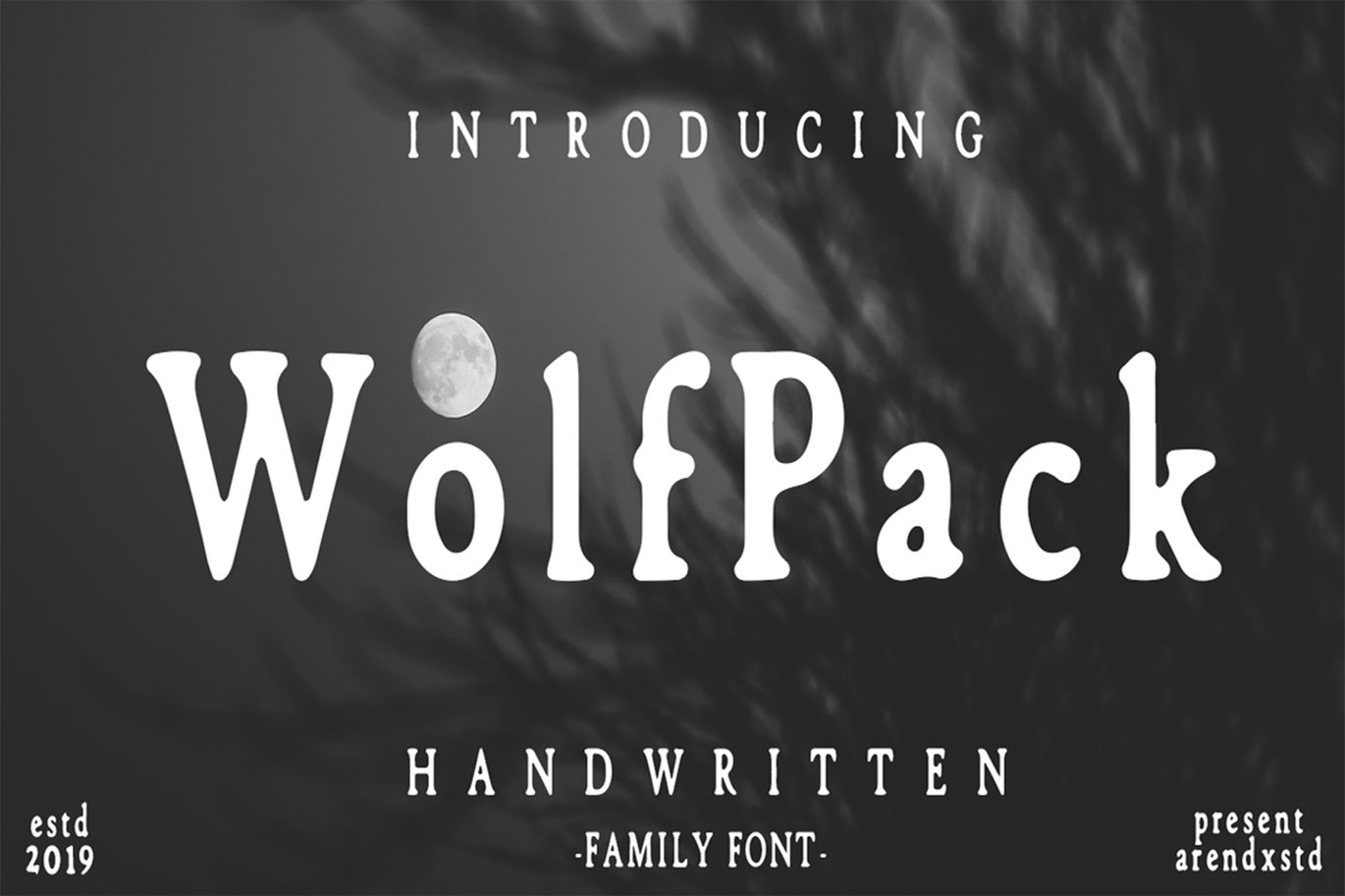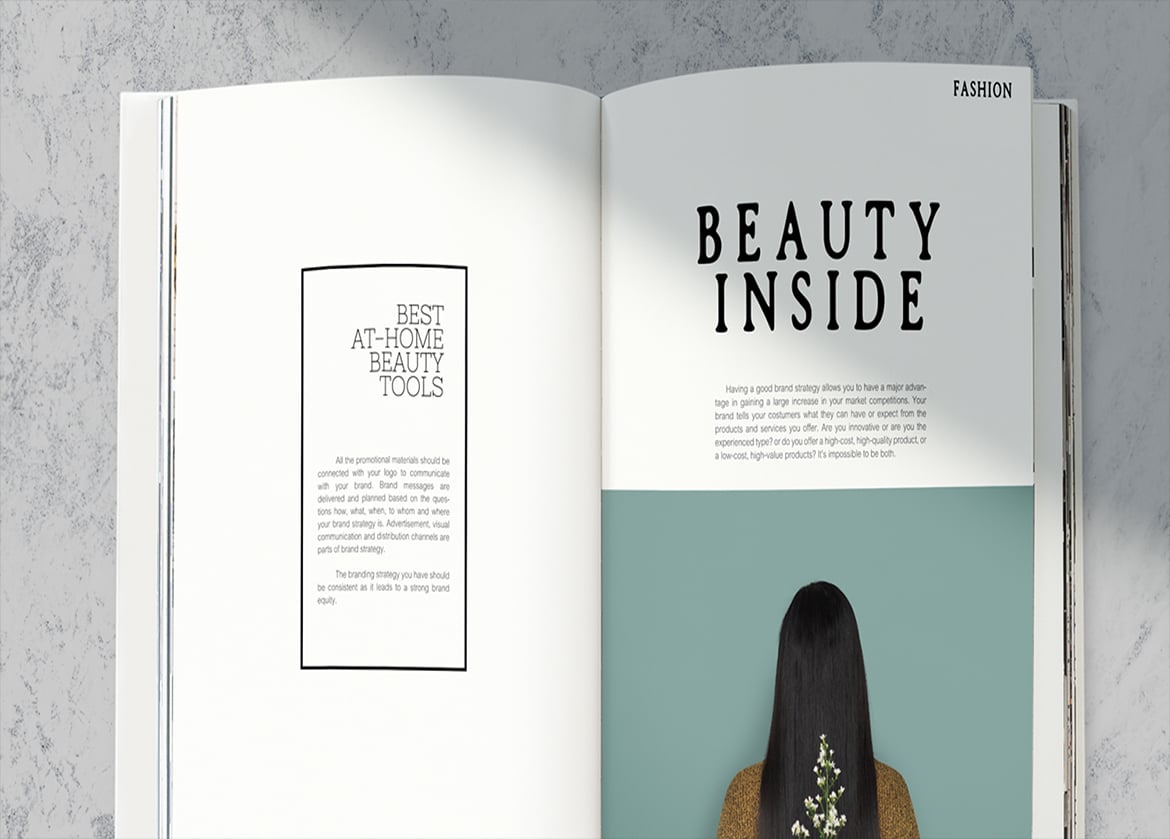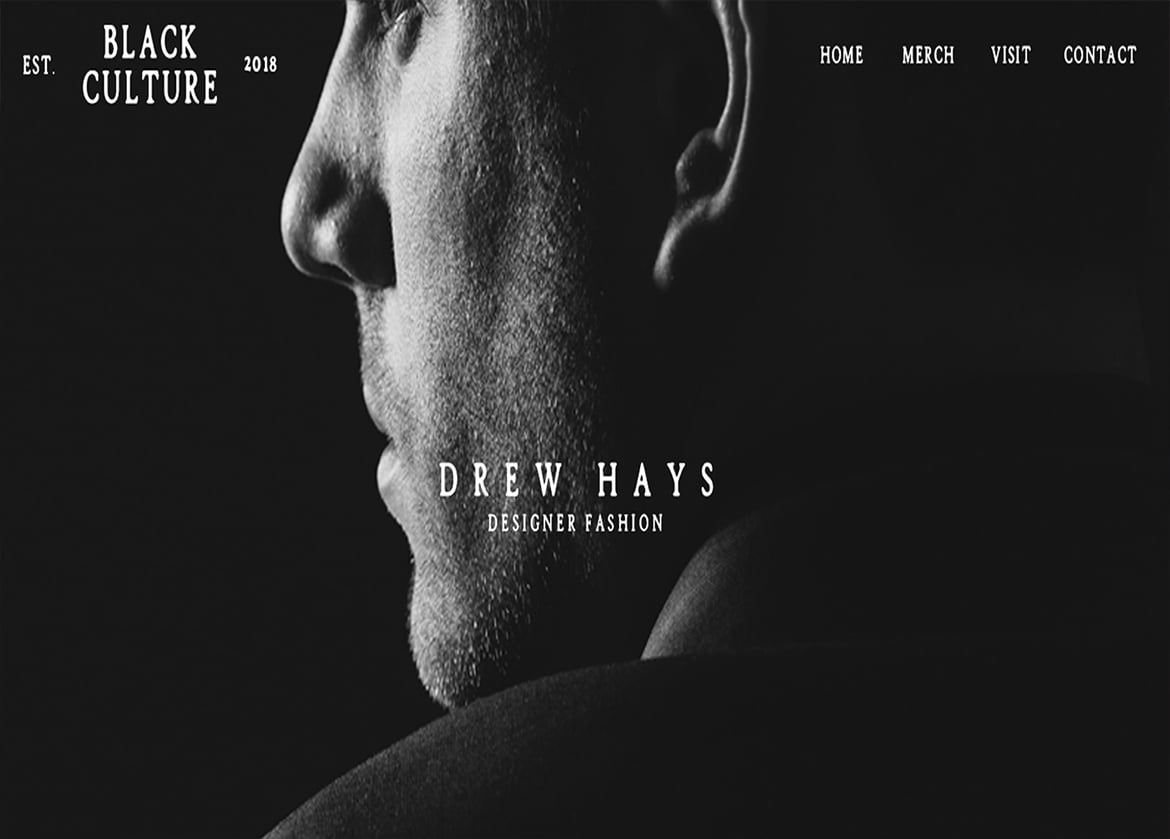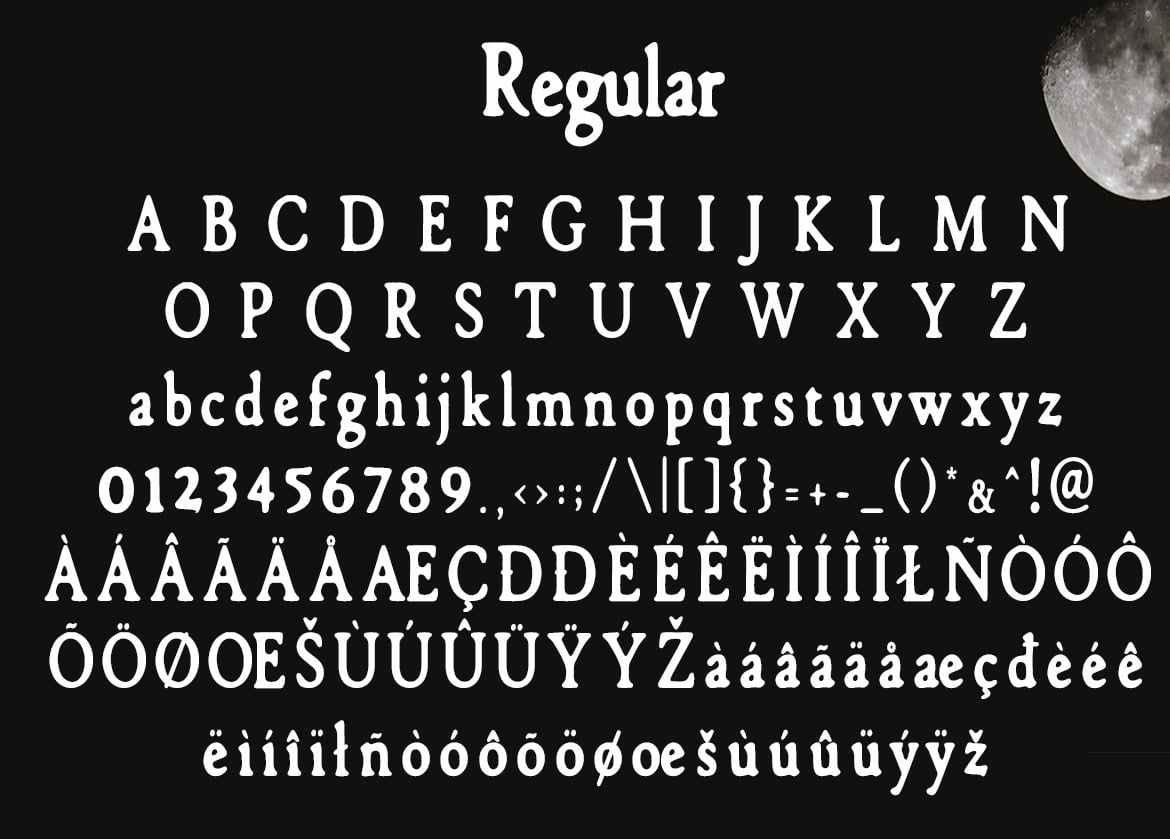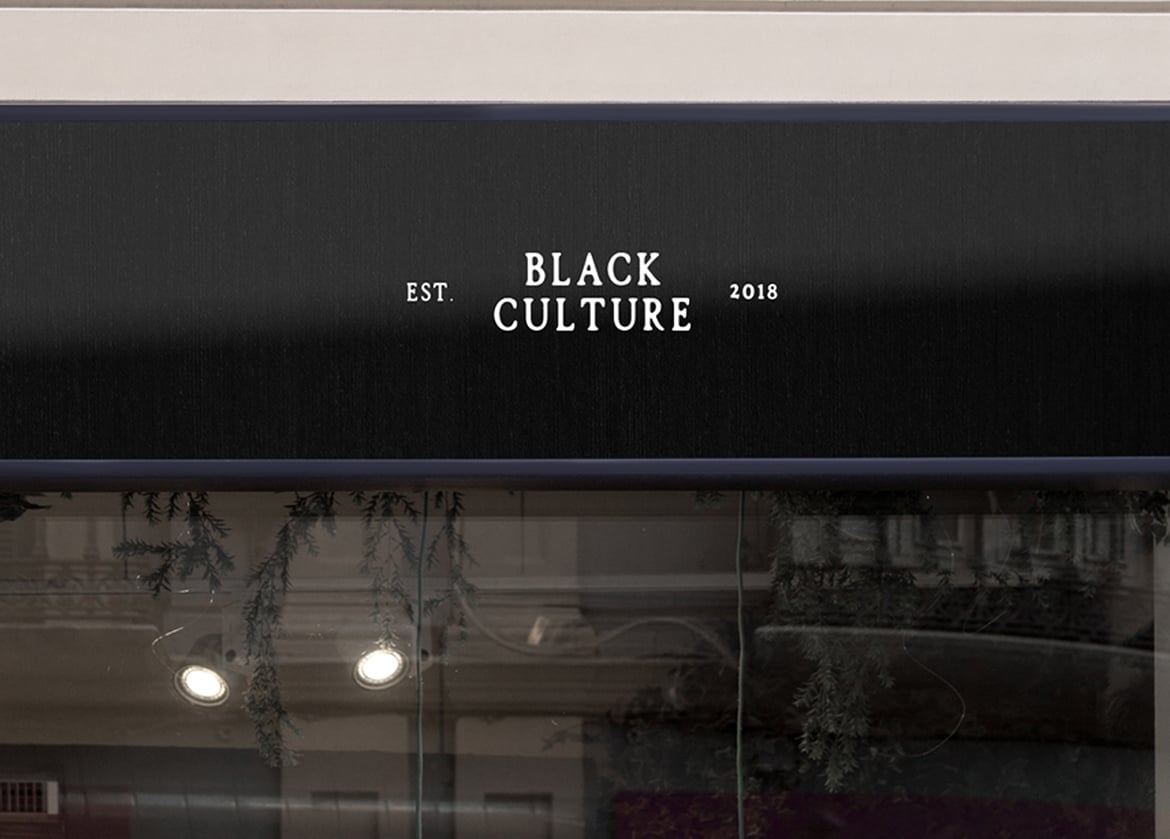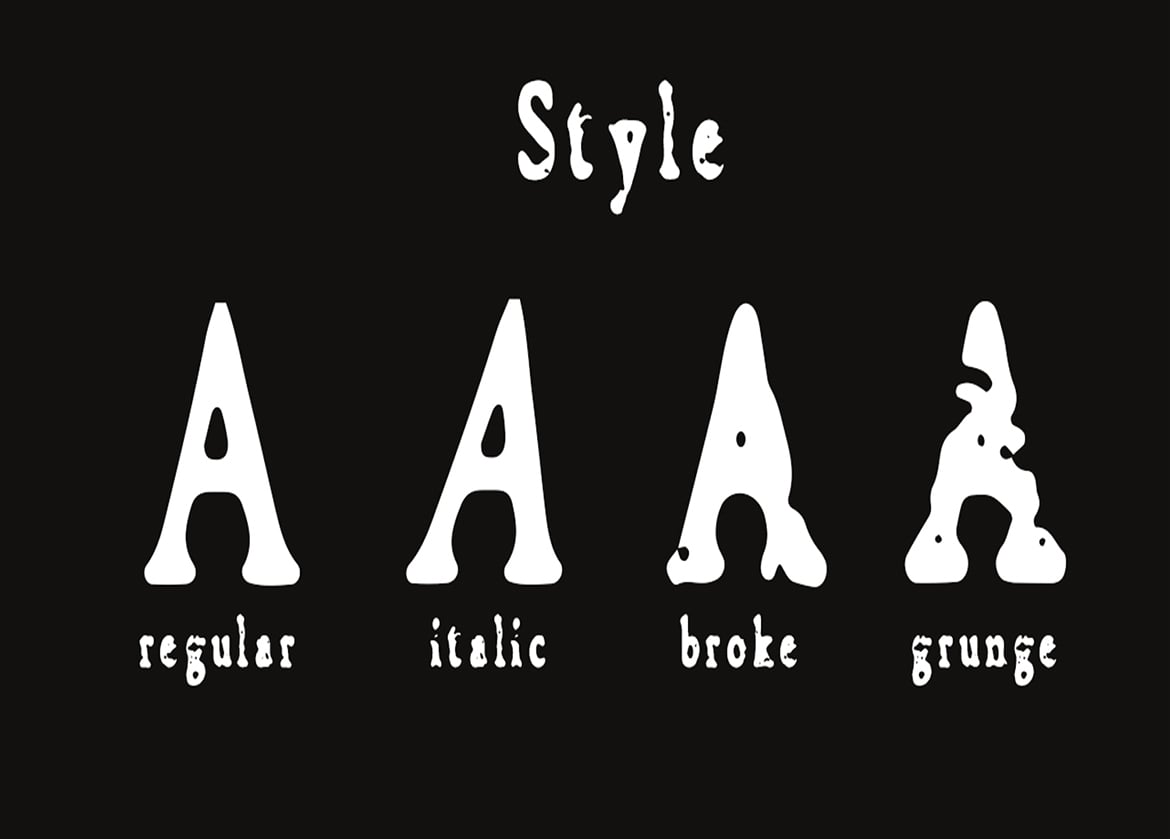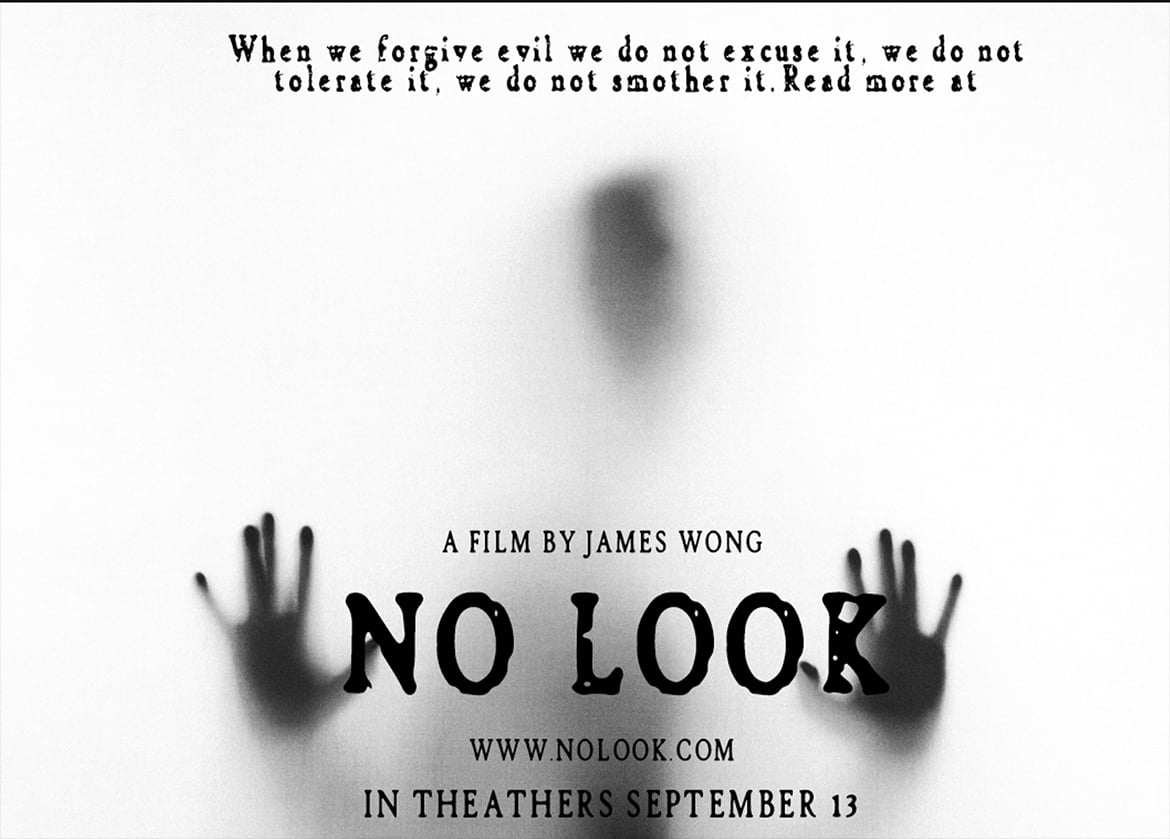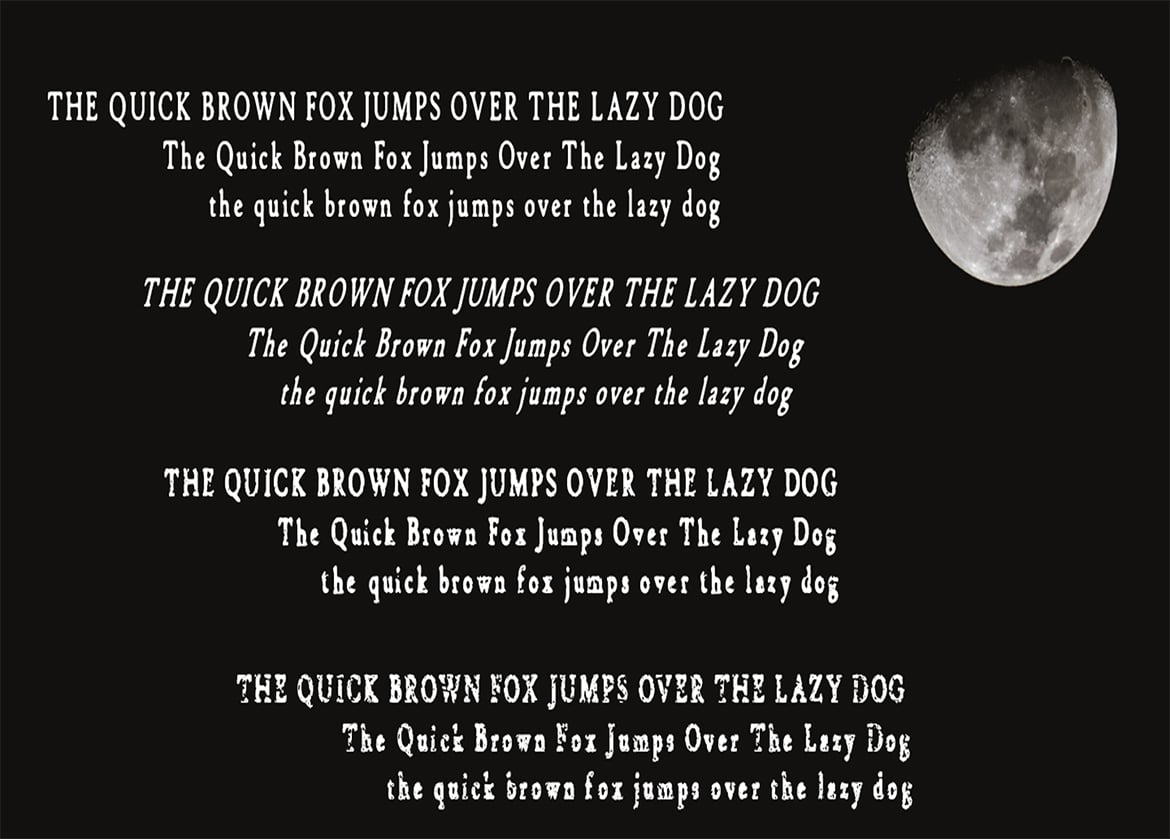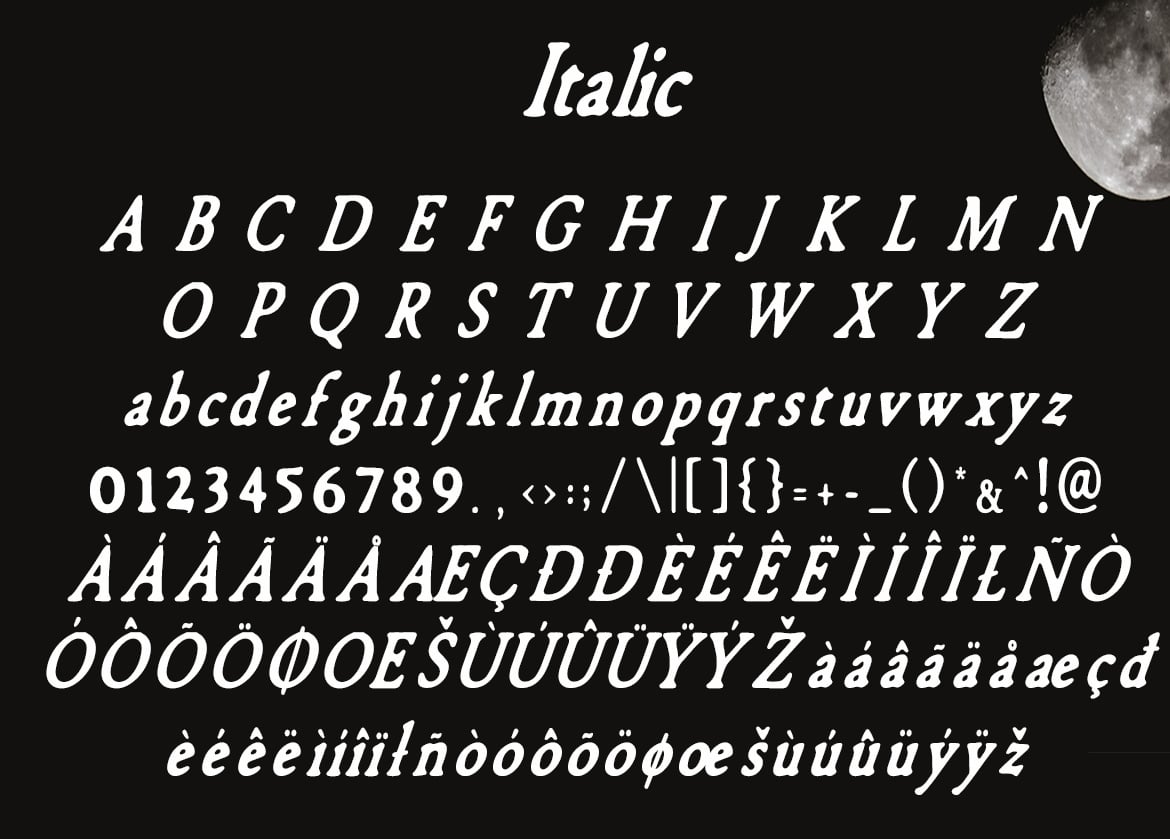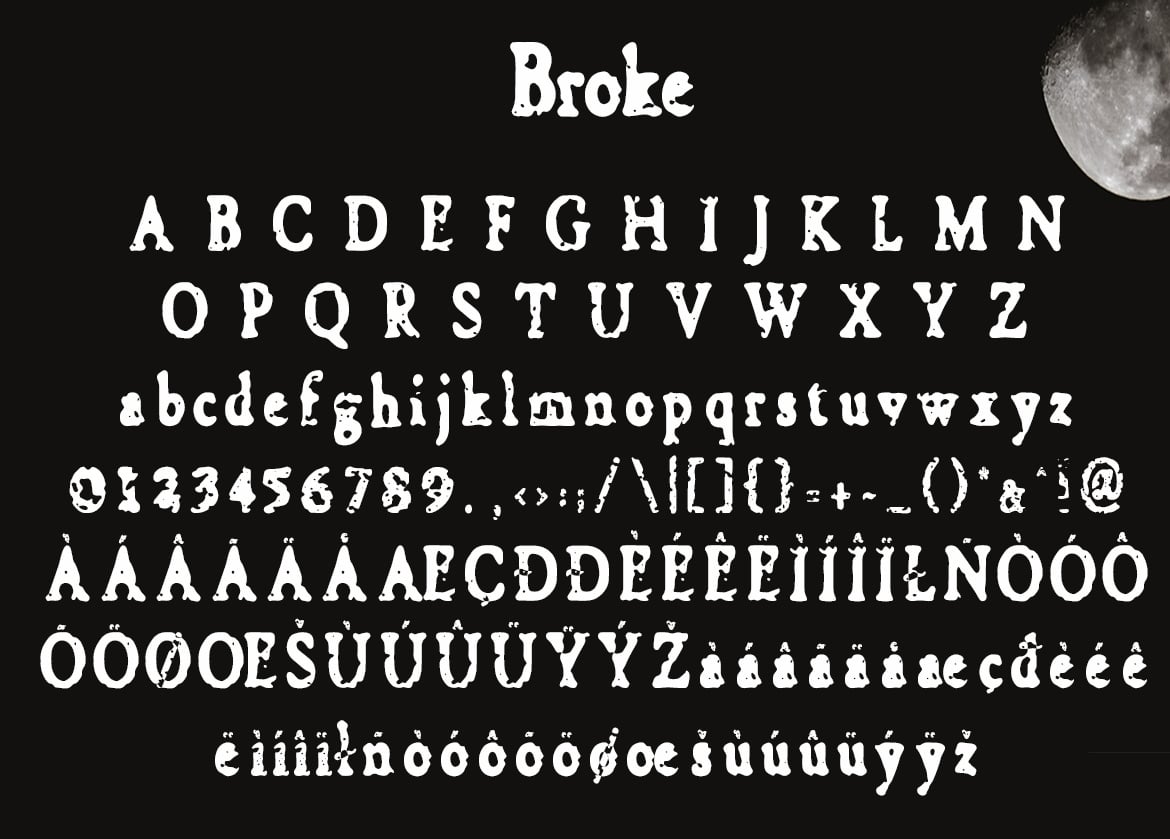
Wolfpack Family Font
Wolfpack is a handwritten font with a personal charm, and has a challenging concept that is stated and also has random properties that make it very interesting to use for each of your design project needs and the needs of all of you.
Wolfpack Available in 4 weights: Regular, Italic- Broke- Grunge complete with the slant style. Great choice for a brave concept!